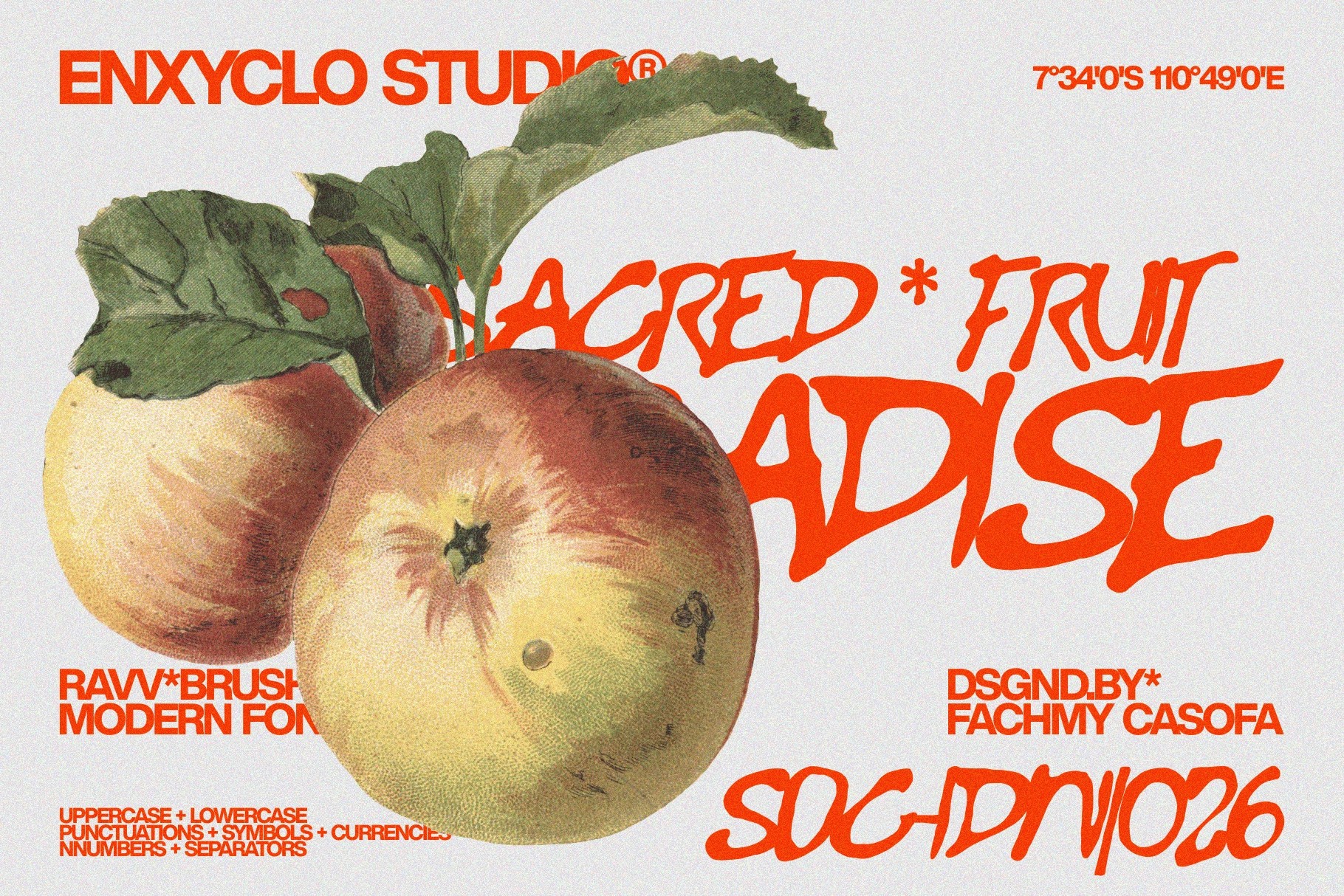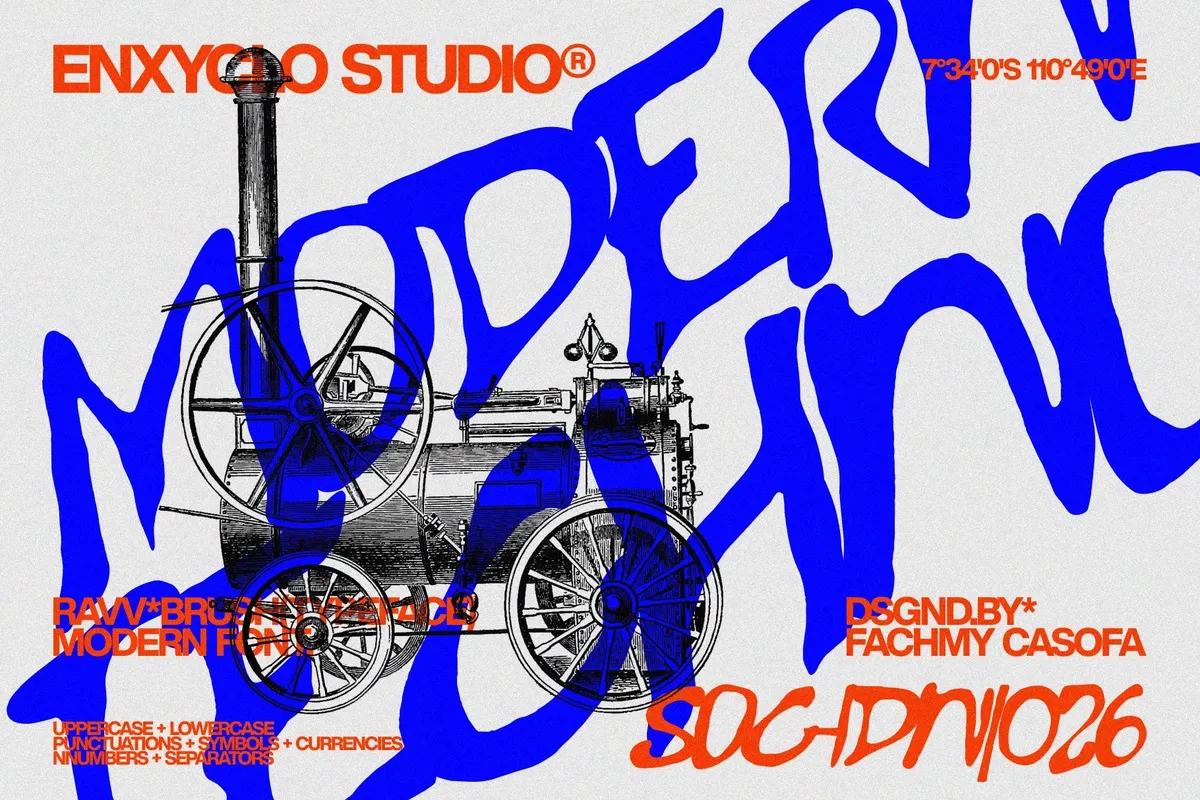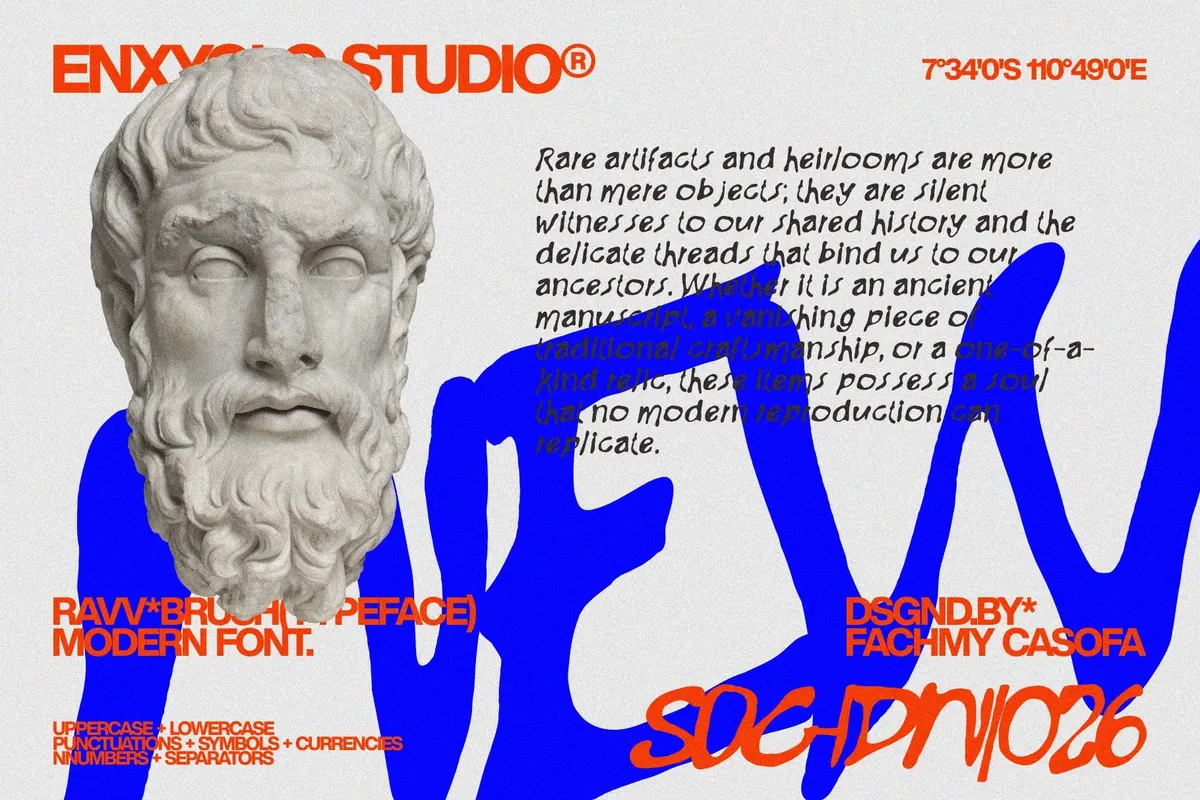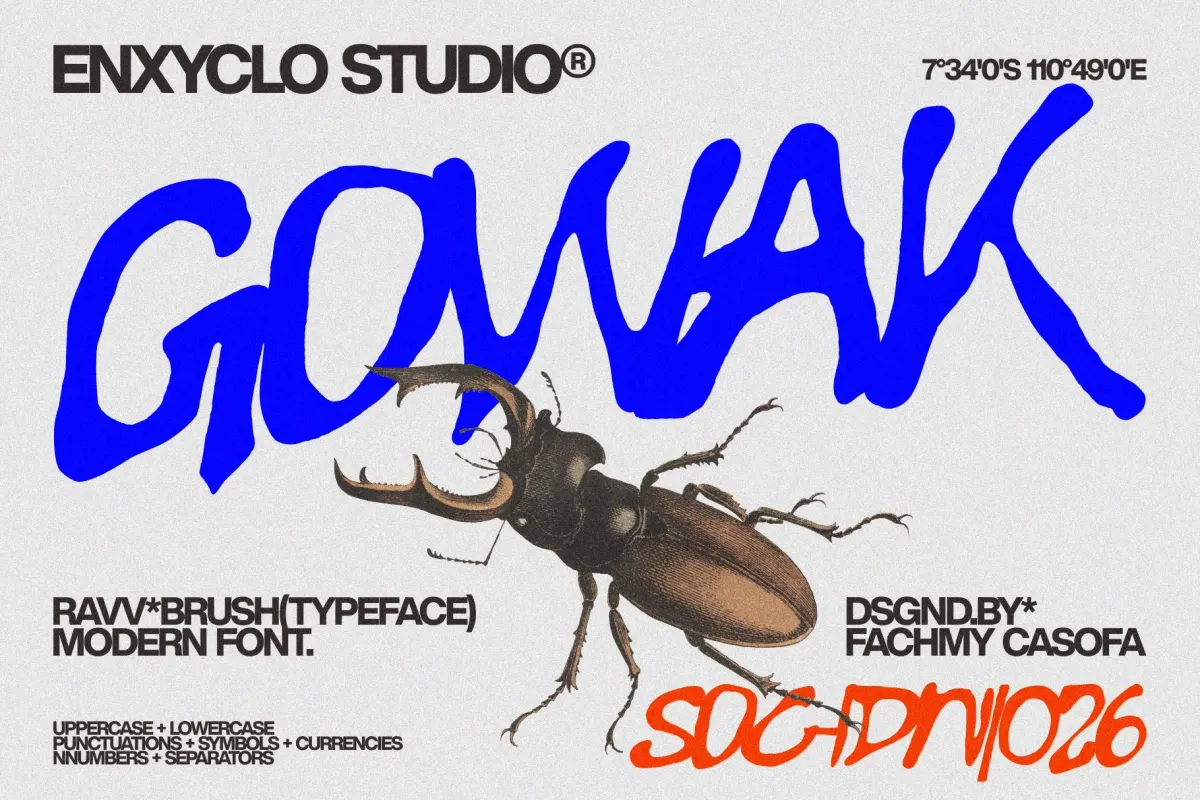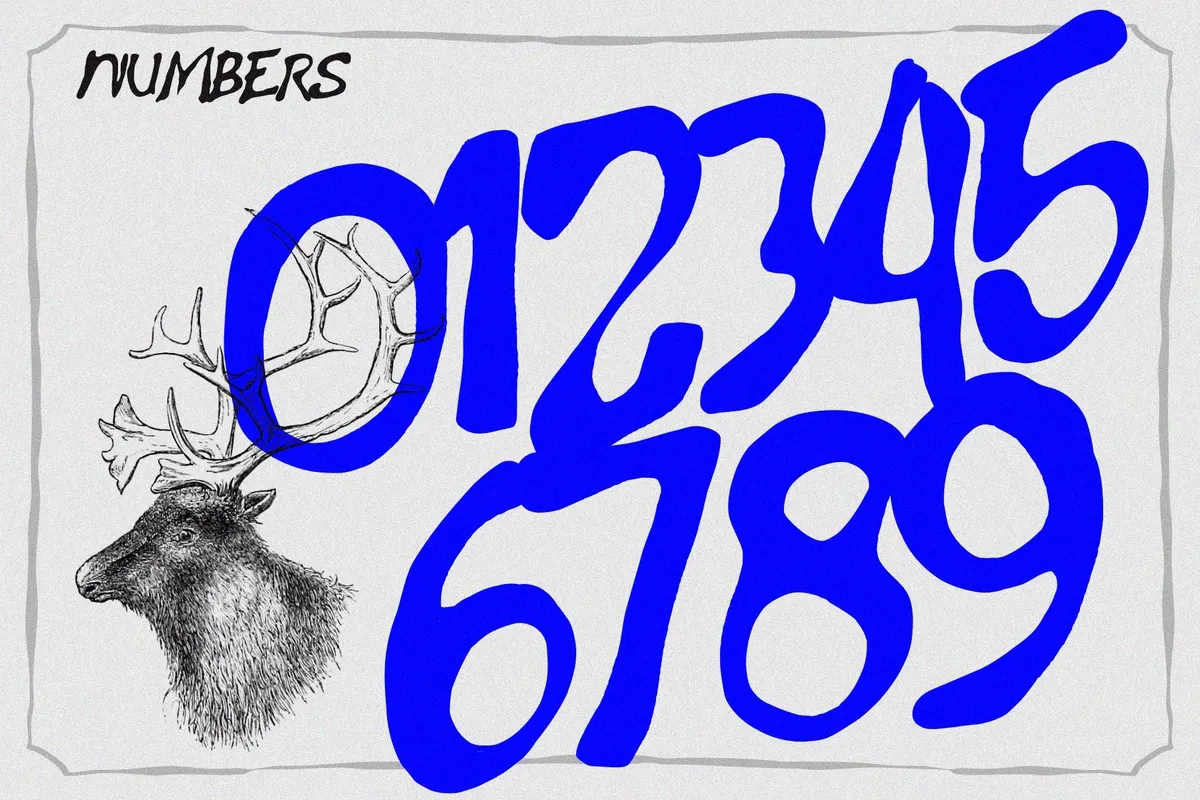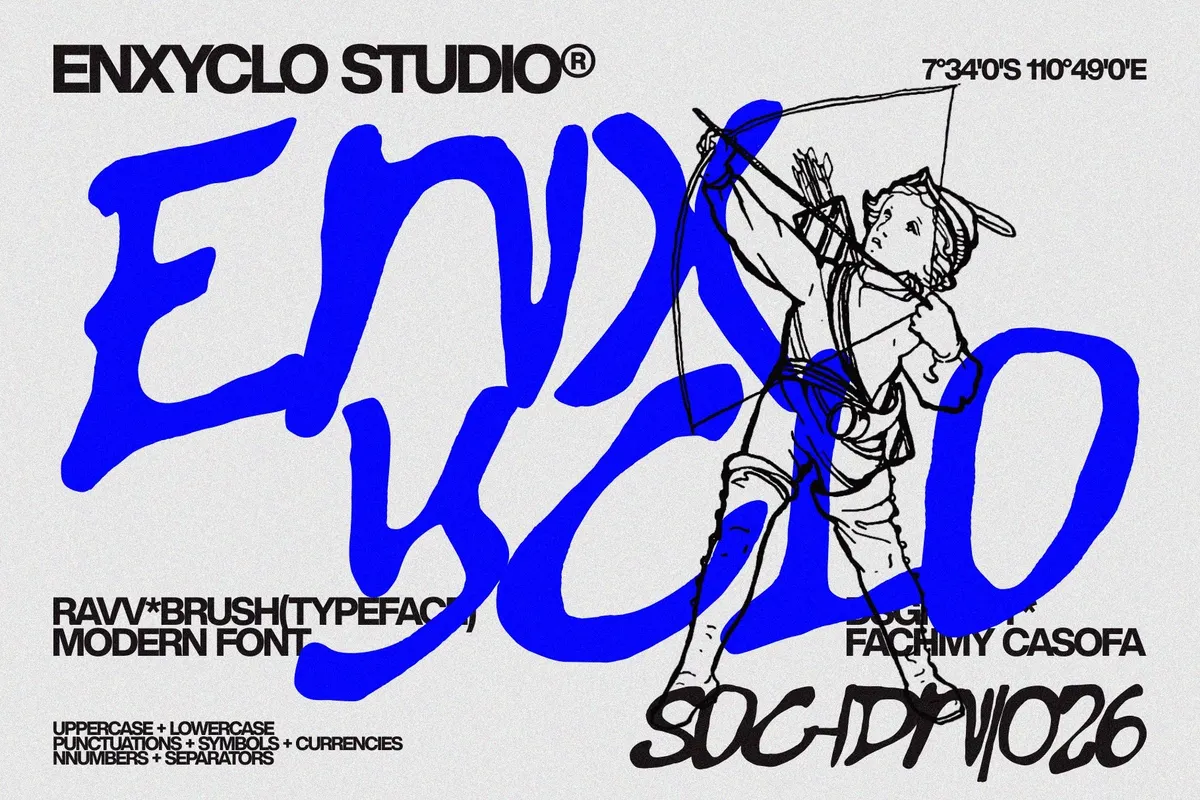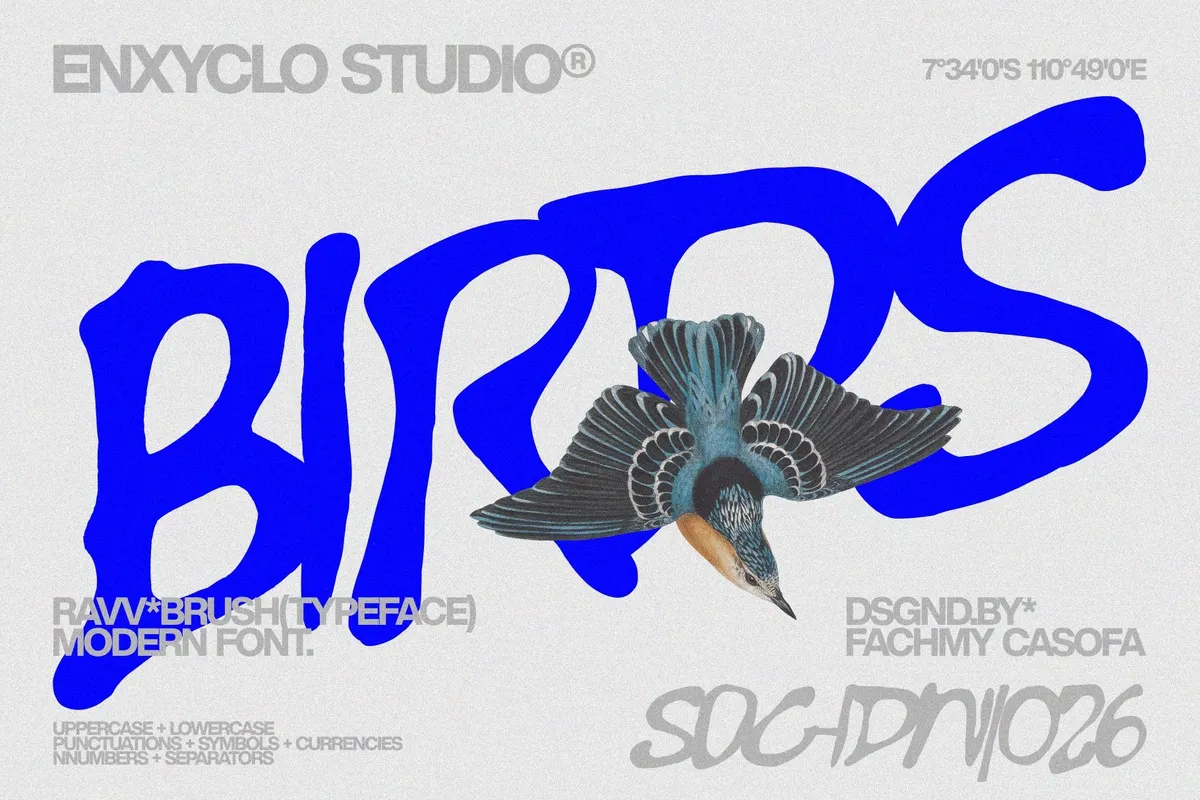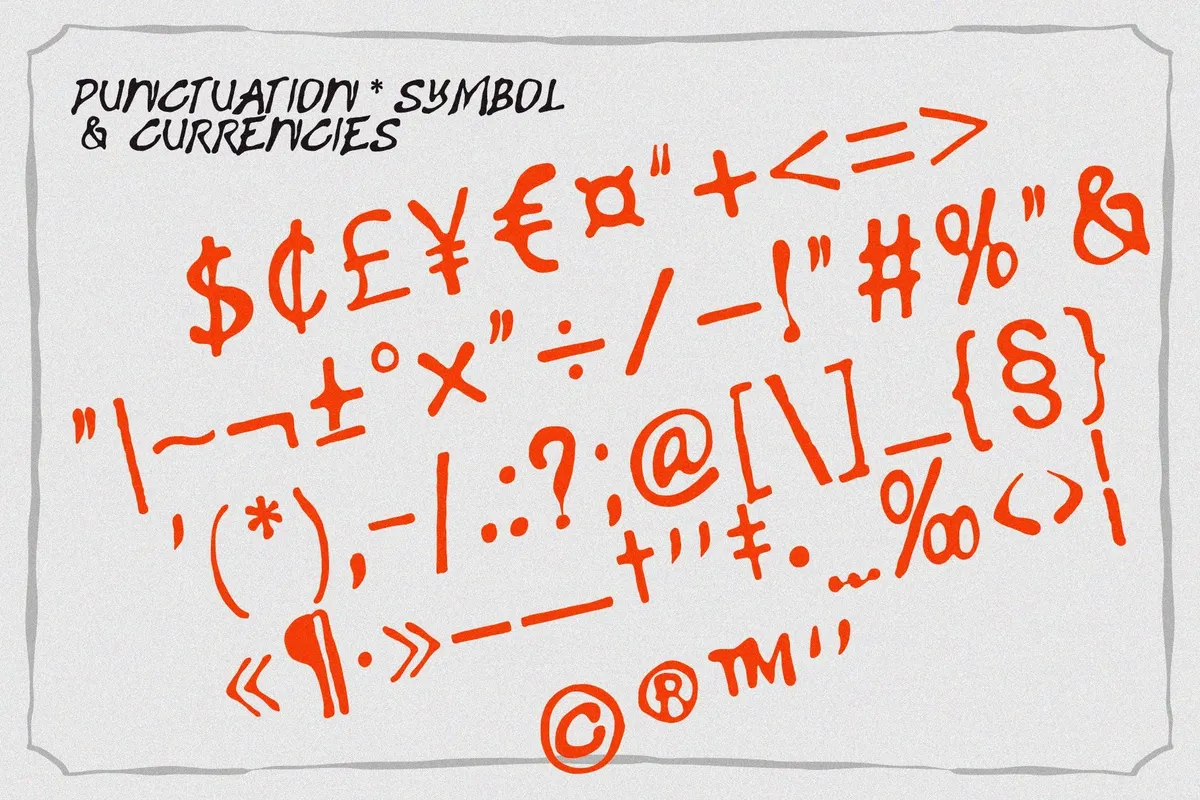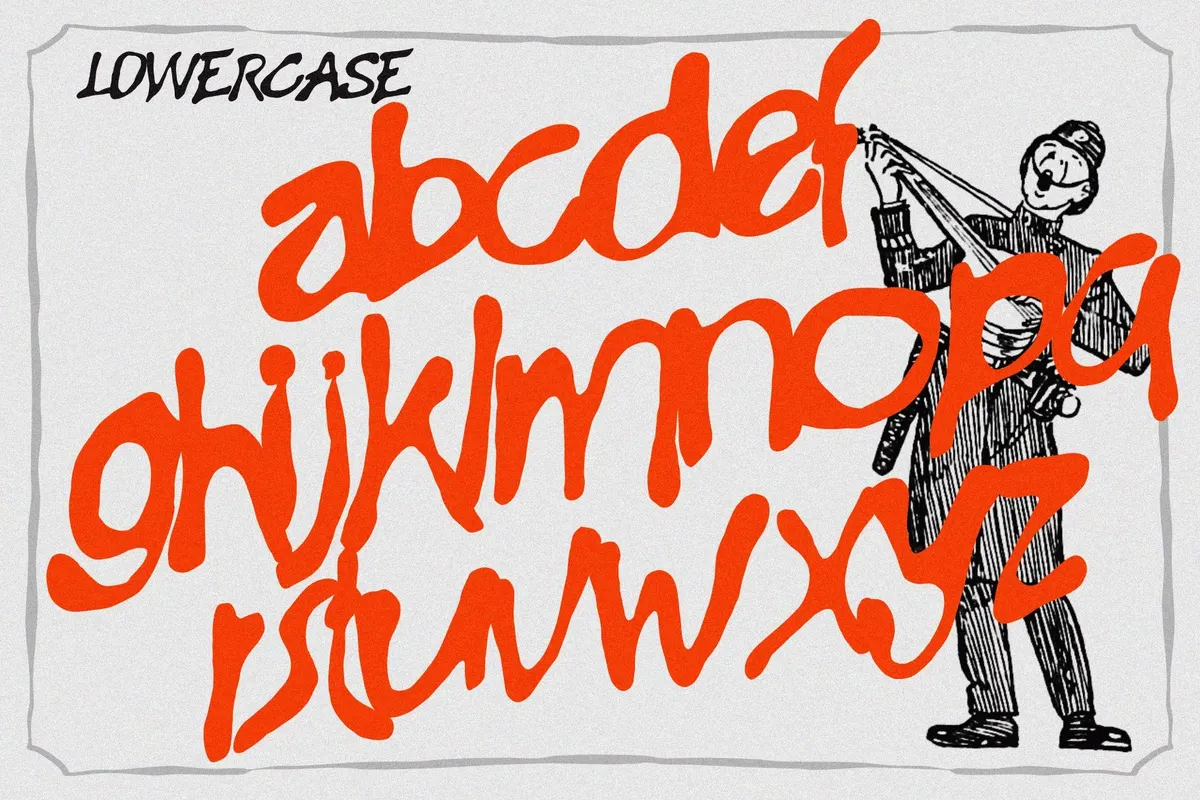
Gowak - Raw Expressive Brush Font
Gowak – Raw Expressive Brush Font is a bold brush display typeface built from energetic hand-painted strokes and expressive lettering forms. Designed to capture the spirit of raw creativity, Gowak blends rough brush texture with a balanced modern structure, creating typography that feels powerful, spontaneous, and full of attitude. Its dynamic strokes bring movement and authenticity while remaining clear enough for impactful headlines and branding.
Perfect for logos, posters, branding systems, packaging, and social media graphics, Gowak gives designs a strong visual voice and artistic edge. The combination of handcrafted texture and contemporary letterforms makes it ideal for creative projects that demand personality, confidence, and expressive character.
- Uppercase & Lowercase Characters
- Punctuation Marks
- Symbol Set
- Currency Symbols
- Hand-Drawn Brush Style with Bold Expressive Character